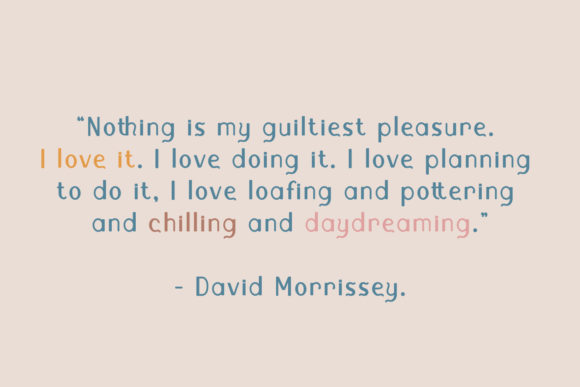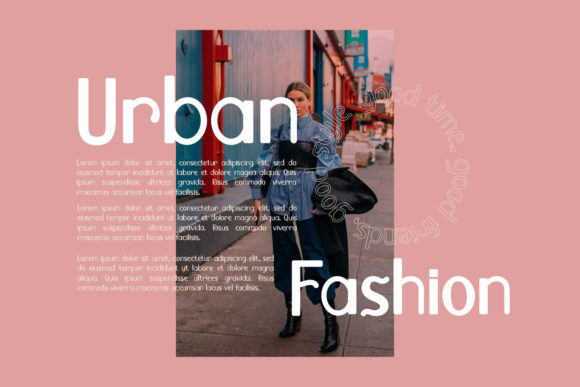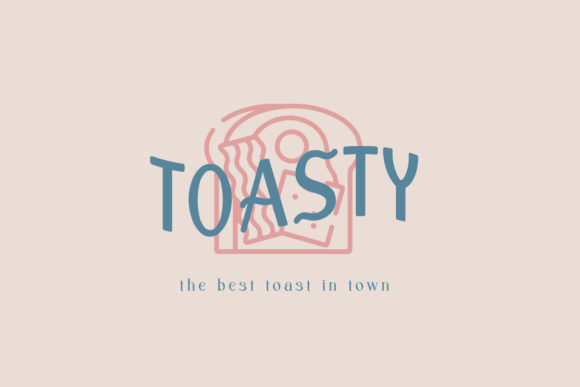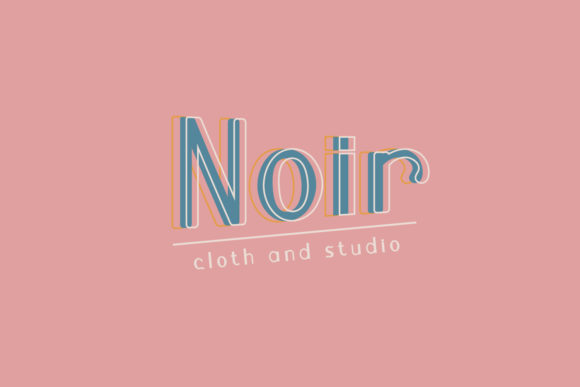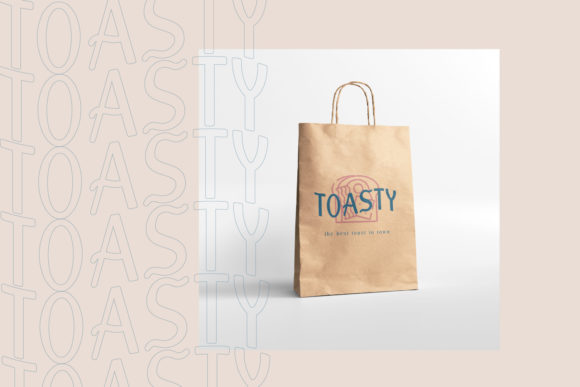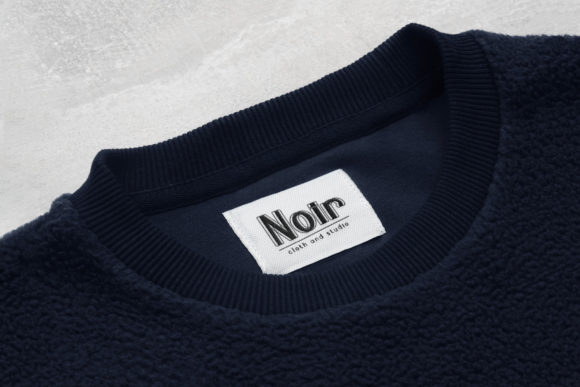
Introduction to Funday Font
Who hasn’t experienced that rush of excitement when starting a new creative project? The blank page stares back, waiting for your imagination to bring it to life. For designers, this moment is all too familiar. The thrill of experimenting with different design resources, like fonts, can make or break the success of a project.
That’s where the Funday Font comes in – a bold and cool lettered display font designed to elevate your creative projects. With its high-quality design and transparent background, this font is a must-have for any designer looking to add a touch of sophistication to their work.
But what sets the Funday Font apart is its ease of use. PUA encoded, this font allows you to access all of its glyphs and swashes with ease, making it a valuable resource for designers who want to take their projects to the next level.
Key Features of Funday Font
- High-quality, vector-based design for seamless scalability and crisp printing
- Transparent background, ideal for creative projects that require flexibility and customization
- Perfect for designers, artists, and writers looking for a unique and playful design resource
- Unique, whimsical design elements that add a touch of fun and personality to any creative project
Honest Review: Funday Font
As a designer, I’m always on the lookout for high-quality design resources to elevate my creative projects. Recently, I stumbled upon the Funday Font, and I’m excited to share my honest review.
What works well: ✨ The Funday Font is incredibly versatile, with a wide range of weights and styles that make it perfect for various design applications. Its playful yet modern design makes it an excellent choice for anything from logos to social media graphics. I also appreciate that it’s available for free download, making it an accessible design resource for designers of all levels.
The font also boasts a transparent background, which is a huge plus for designers who value flexibility and customization. This feature allows for seamless integration with other design elements, making it easier to achieve a cohesive look.
Limitations: ⚠️ While the Funday Font is a great addition to any design arsenal, I do wish it had more language support. As it stands, it’s primarily suitable for English-speaking designers. Additionally, the font’s size and complexity can make it a bit challenging to work with for beginners.
Overall impression: I’m thoroughly impressed with the Funday Font, and I’m excited to continue using it in my future design projects. With its high quality, versatility, and free download availability, it’s definitely a design resource worth checking out.
Pros:
- High-quality design with a wide range of weights and styles
- Perfect for various design applications, from logos to social media graphics
Cons:
- Primarily suitable for English-speaking designers
- Can be challenging to work with for beginners due to size and complexity
Funday Font
Tips for Getting the Most Out of Funday Font
To get the most out of the Funday Font, use it with a transparent background to create a sense of depth and dimension. You can also experiment with different font sizes and colors to add visual interest to your design.
The Funday Font is perfect for:
- Creating social media graphics and posts
- Designing invitations and party decorations
- Adding a playful touch to presentations and documents
Alternatives to Funday Font
Comic Sans
Comic Sans is a playful, informal font perfect for creative projects that require a lighthearted tone. It’s ideal for social media graphics, children’s books, and other design elements where a friendly, approachable feel is desired.
Compared to Funday Font, Comic Sans has a more rounded, childlike appearance that can be both a strength and a weakness, depending on the context of the design. While it’s great for casual, everyday use, it may not be suitable for more formal or professional projects.